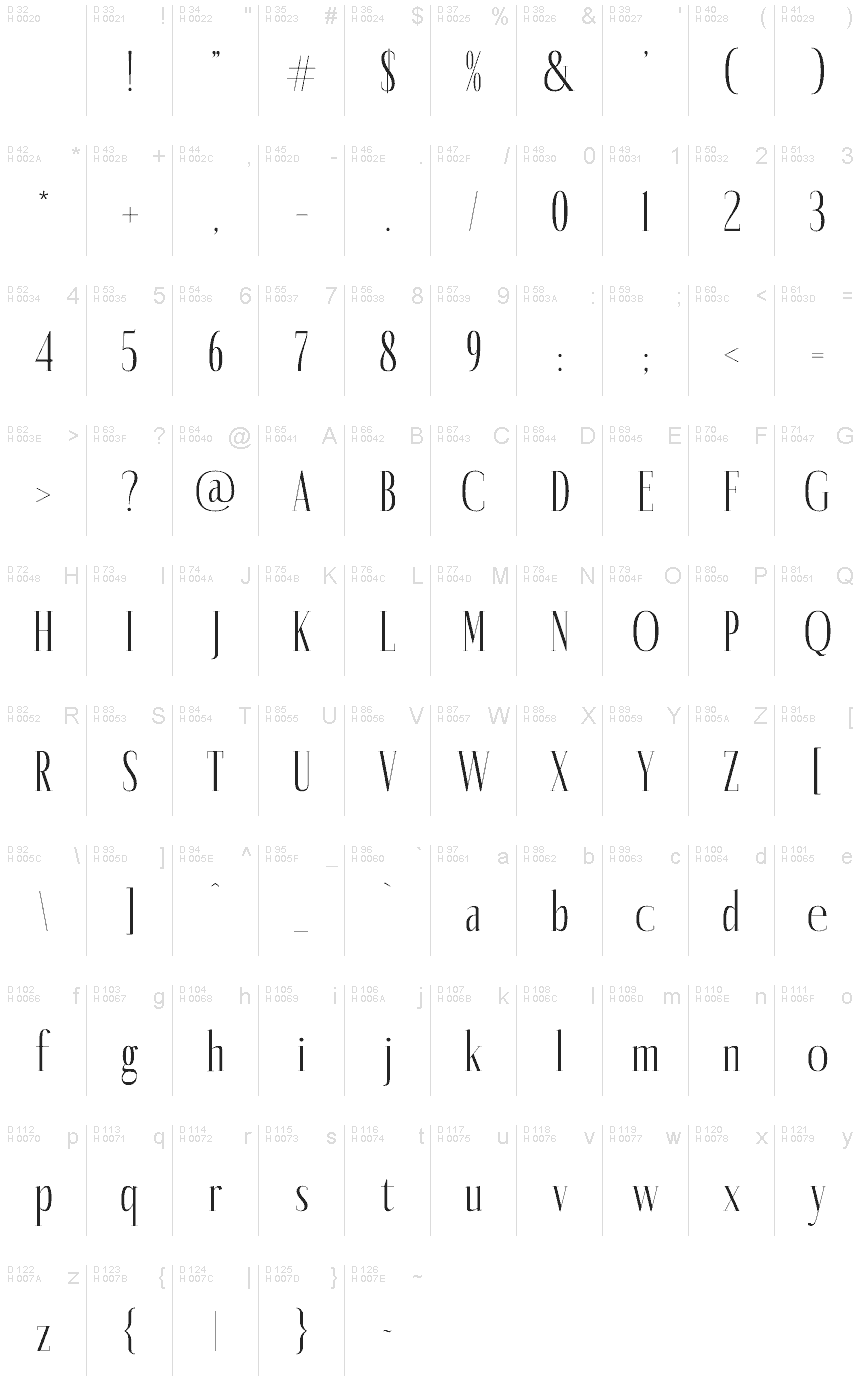
Montaners
Montaners font by Storytype Studio is an elegant serif font inspired by classic lettering styles. It combines traditional influences with a sophisticated and formal design. The condensed width gives it a refined, legible appearance, lending it to use for beautiful titles, subtitles, logos and other visual branding elements.
A suitable choice to craft labels, signage or headlines as well, this free serif font can beautify things like advertising projects or packaging labels. Integrate it into clothing designs such as t-shirts and jackets for more ideas on how Montaners can shine!